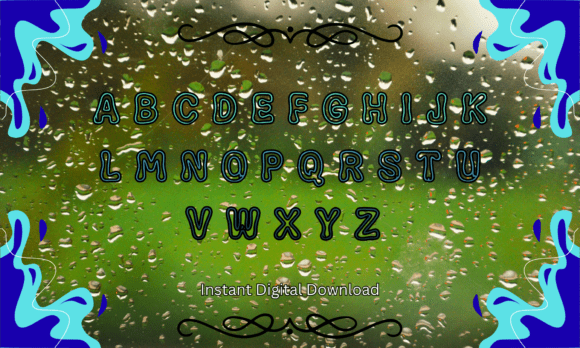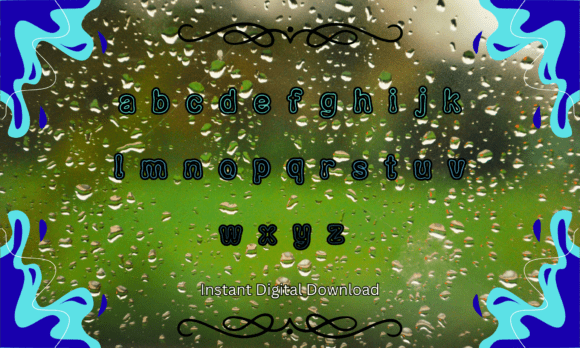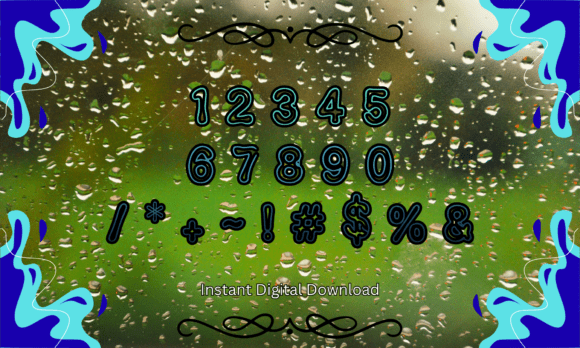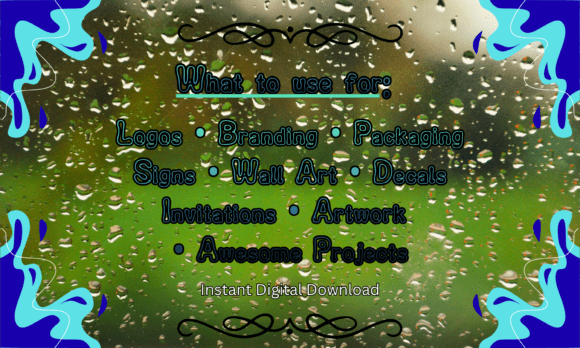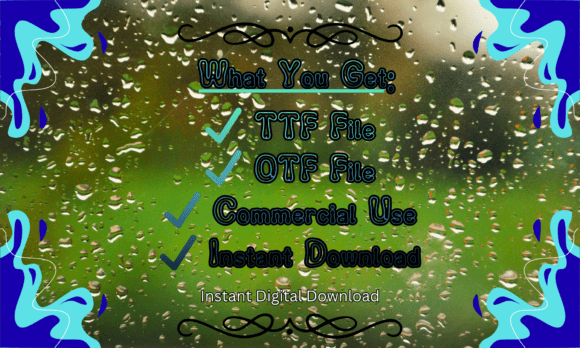
Introduction to Liquid Glass Font
As a designer, there’s nothing quite like the thrill of discovering a new design resource that sparks your creativity and elevates your projects. For me, it’s the little moments, like sipping coffee on a rainy morning, gazing out the window at the droplets sliding down the glass, that inspire me to create something truly special. And that’s exactly what the Liquid Glass Font does – it captures the essence of those moments and distills it into a high-quality, modern display typeface that’s perfect for adding a touch of sophistication to your creative projects.
Whether you’re a seasoned designer or just starting out, the Liquid Glass Font is a valuable addition to your toolkit. Its smooth, liquid-inspired lettering and glossy bubble outlines create a unique and atmospheric vibe that’s sure to make your designs stand out. Plus, with its transparent background, you can easily incorporate it into your designs without worrying about distractions.
Key Features of Liquid Glass Font
- High-quality, transparent background design ideal for creative projects
- Designed with a unique, liquid-like aesthetic, perfect for modern and sleek designs
- Includes a variety of characters, including uppercase and lowercase letters, numbers, and punctuation
- Perfect for use in digital design, including logos, branding, and graphics, as well as print materials
Honest Review: Liquid Glass Font
I recently had the chance to work with the Liquid Glass Font, and I must say it’s been a great addition to my design resource library. This font is perfect for creative projects where you need a modern, sleek look.
- The high-quality design of the font makes it perfect for printing or digital use.
- The transparent background option is a great feature for designers who want to customize their designs.
- The font is highly versatile and can be used for a variety of creative projects, from logos to brochures.
- The font may not be suitable for projects where a bold, dramatic look is needed.
- The font is not available in as many weights as some other popular fonts.
Overall, I’m very impressed with the Liquid Glass Font. It’s a great addition to any designer’s toolkit, and its high-quality design makes it perfect for a variety of creative projects.
The Liquid Glass Font is suitable for a variety of creative projects, including:
- Branding